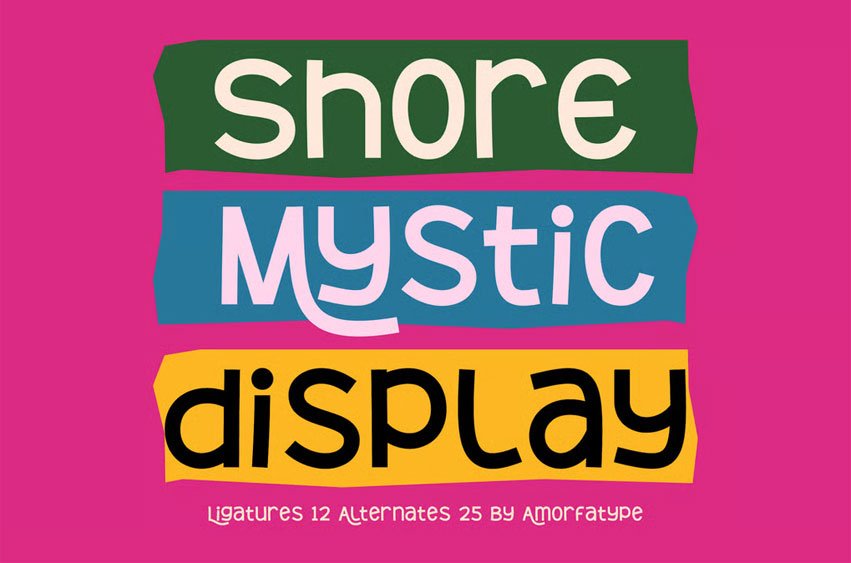
Shore Mystic Font is a fun and quirky display sans-serif font that brings energy, creativity, and a handmade touch to your designs. With its playful letterforms, organic shapes, and cheerful personality, this font instantly adds charm and uniqueness to any project.
- Playful, Quirky & Display-Ready – Perfect for bold headlines, packaging, and unique branding
- Complete Character Set: Uppercase, lowercase, numerals, punctuation, ligatures
- 369 Glyphs – with 25 alternates & 12 ligatures for creative variety